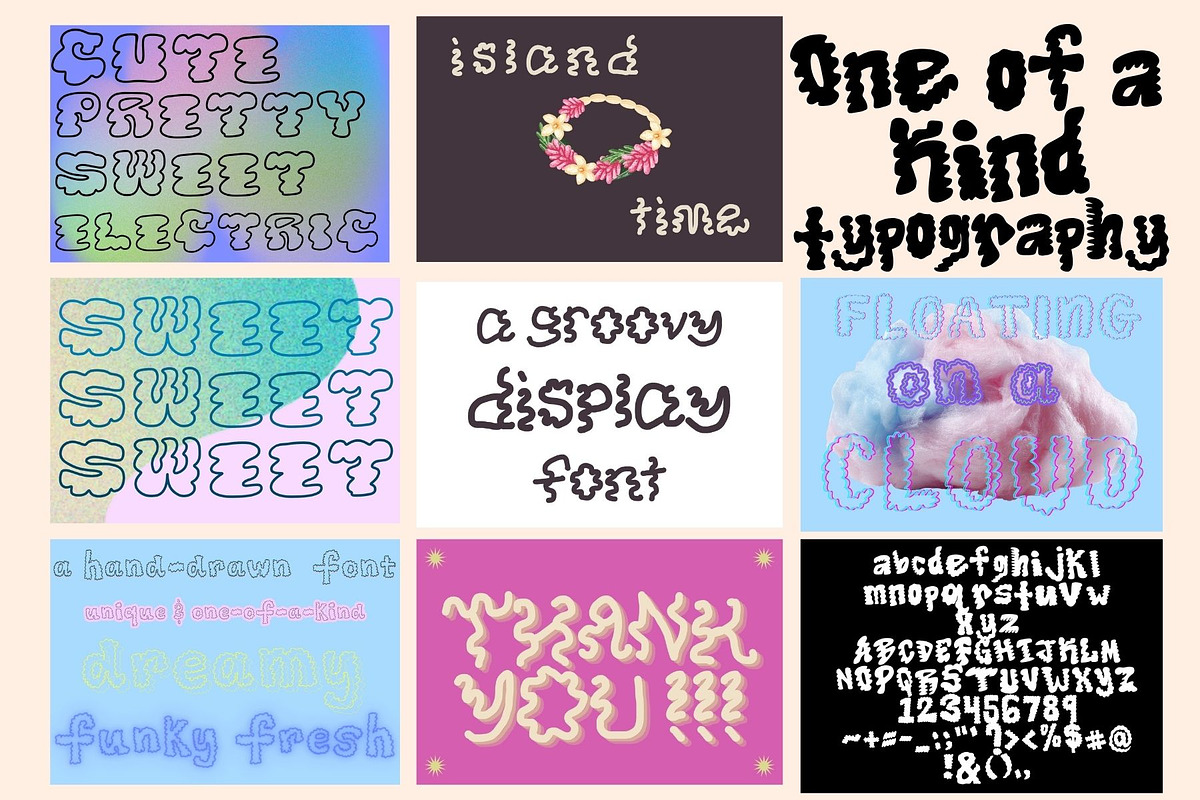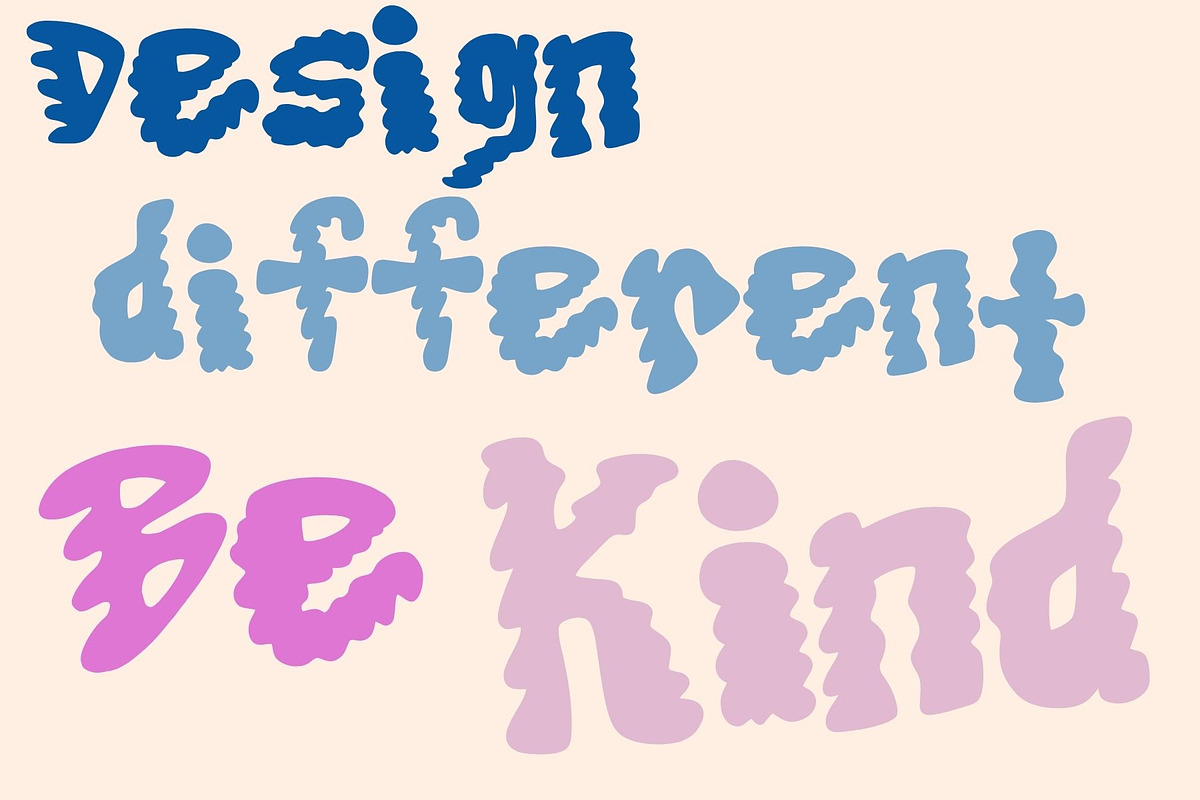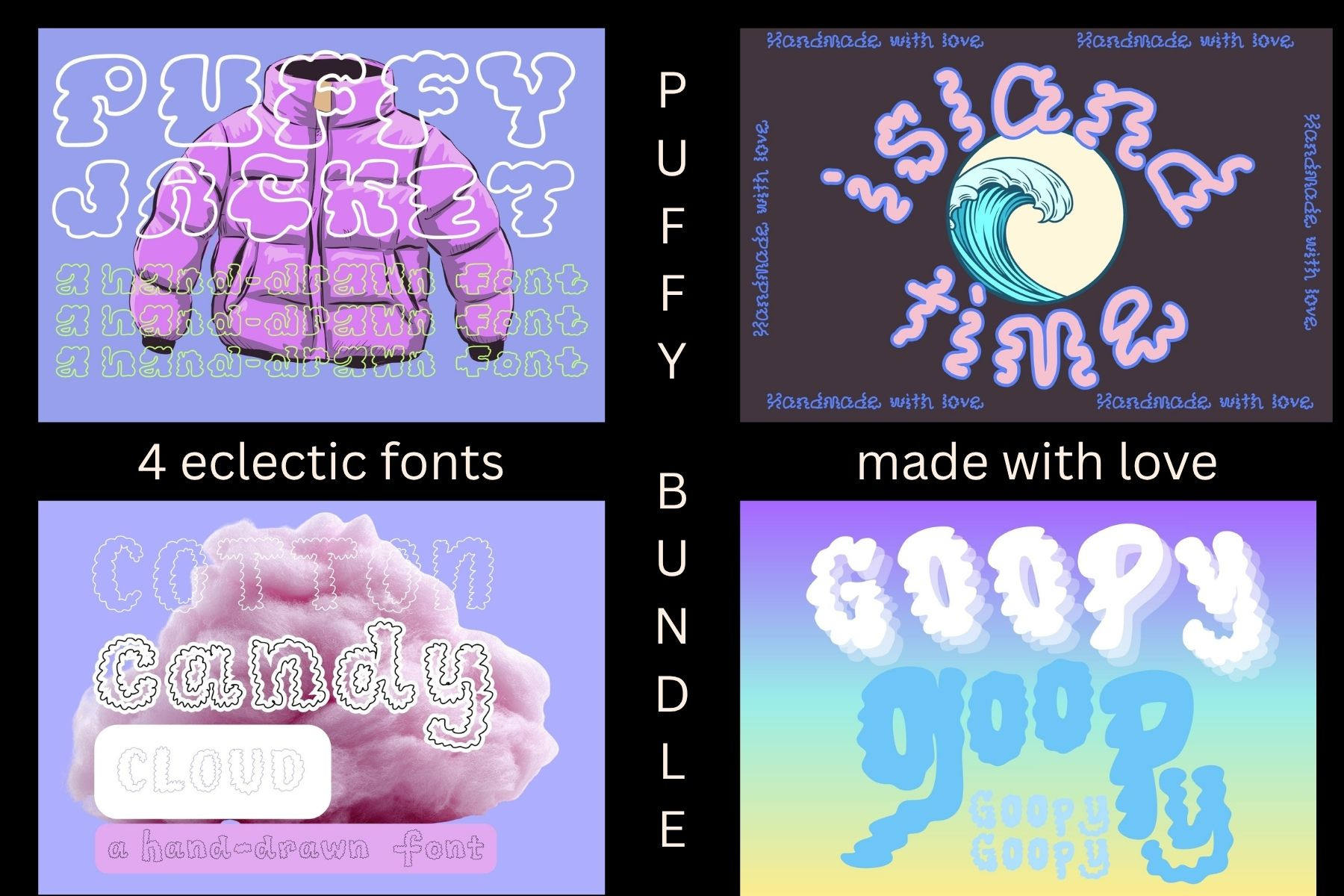
Four Font Puffy Artistic Bundle
Puffy Four Font Eclectic Handmade Bundle.
This Bundle includes 4 hand-lettered 'puffy' , eclectic fonts.
Island Time
Puffy Jacket
Cotton Candy Cloud
Goopy
Do you love designing projects that feature bold text ? Do you find ways to use letters as artistry to bring people to your product, social media, or event ? If so, this four font bundle might just be for you. Featuring puffy, cloud like roundness, cutting edge and avant garde shapes , wonderfully artistic and whimsical letters, numbers, and symbols. One-of-a-kind typography, with a trend-setting aesthetic that can be Pop art, Beach Vibes, Hipster, or Child-like. Have fun creating ! P.s. don't forget to stay curious.